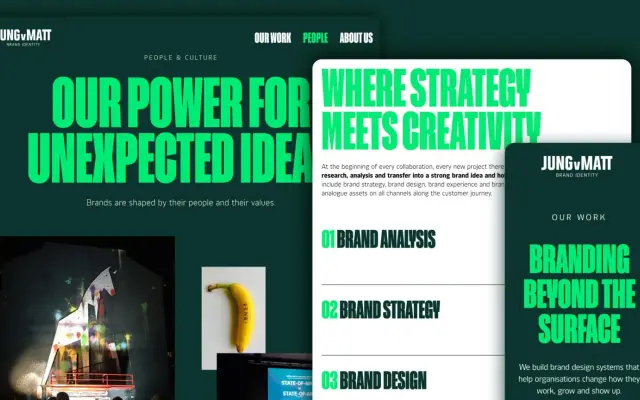
Jung von Matt
Character Type · Henning Skibbe
A bespoke extra-compressed headline typeface designed by Henning Skibbe for the Jung von Matt advertising agency's own brand identity.
Developed by Character Type for Jung von Matt's in-house brand design, this single-style extra-compressed display face is built entirely in capitals, which sit above the baseline to allow very tight line spacing without collision. Angular terminals reference the agency's trojan horse brand symbol, and a thin line element addresses the readability challenges that arise in dense characters such as @ and € when set at extreme compression. The result is a loud, direct headline face with a strong visual identity tied to a single client.
A bespoke all-caps extra-compressed headline typeface with angular terminals and custom solutions for dense letter spacing, firmly in the display category with no running-text intent.